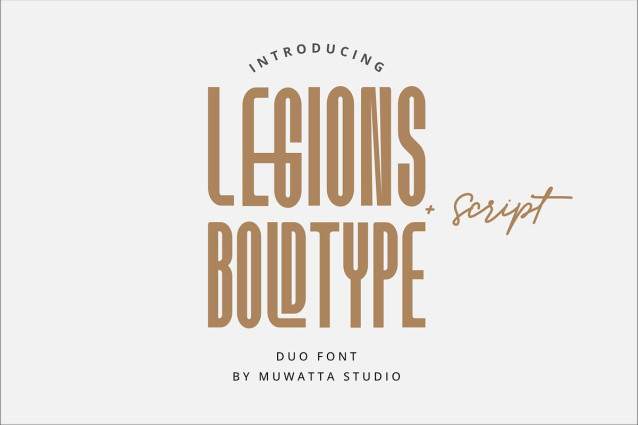
Legions Boldtype Font
Legions Boldtype Font is a bold display font designed specifically to grab attention. With its strong, bold, and bold letterforms, this font is ideal for headlines, poster titles, and designs that demand high visibility and a strong impression at first glance.